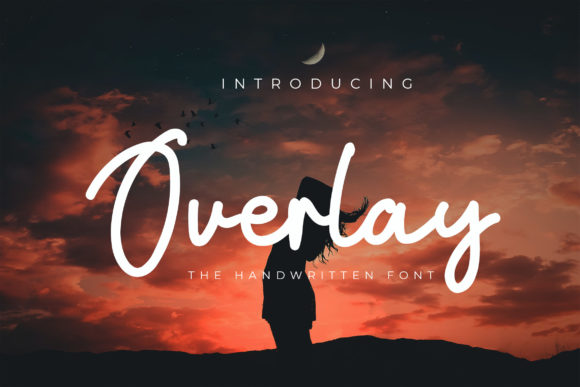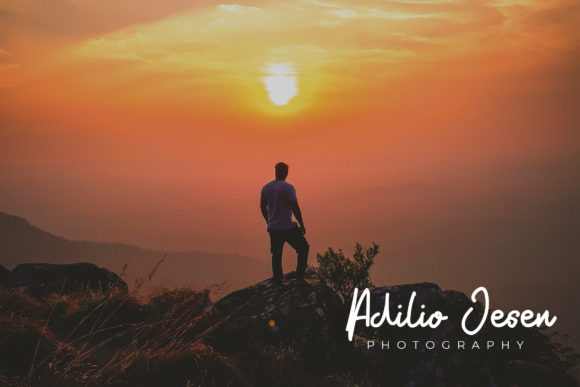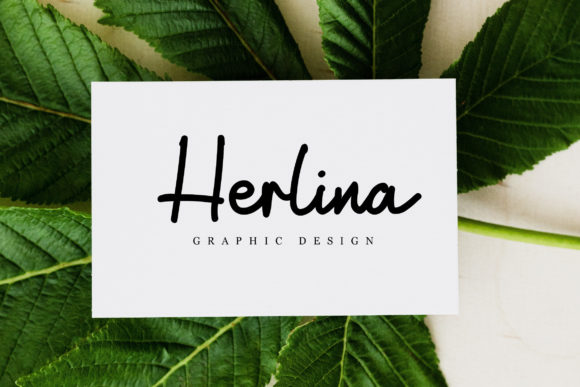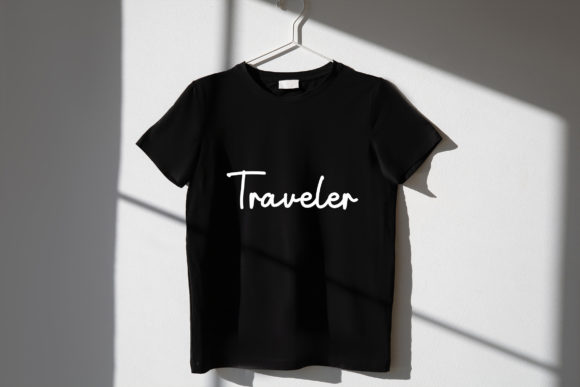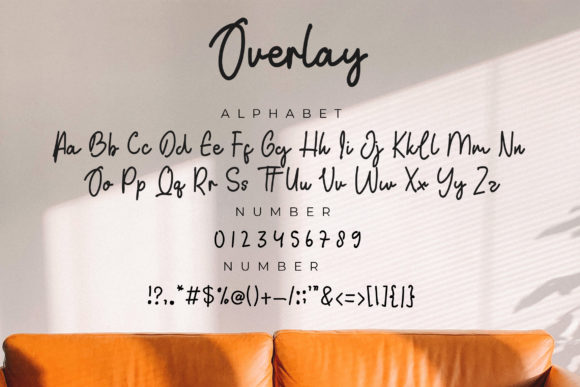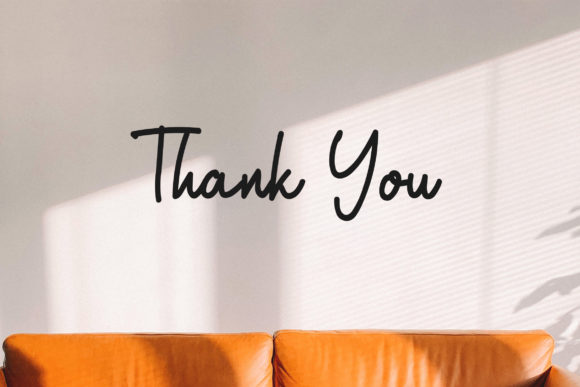
Overlay Font
About Overlay Font
Overlay is a cute and casual script font. No matter the topic, this font will be an incredibly asset to your fonts’ library, as it has the potential to elevate any creation.